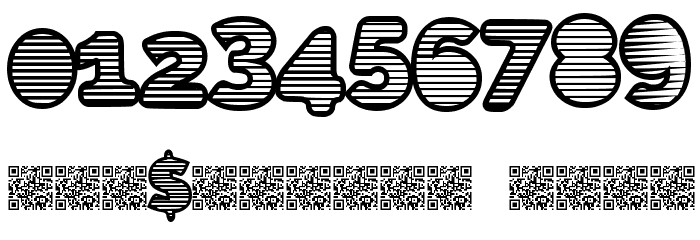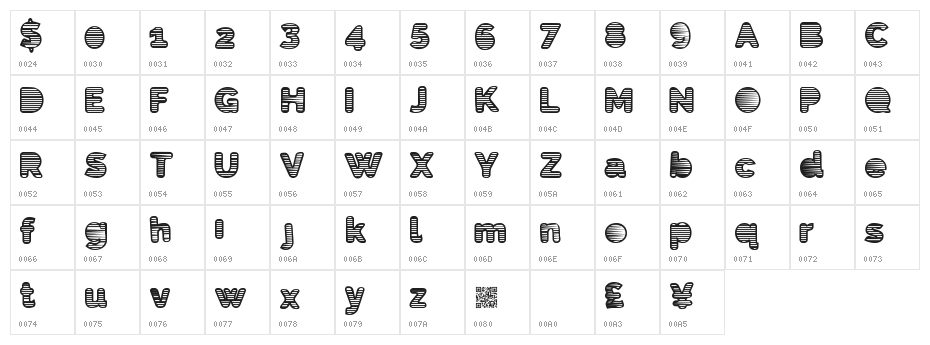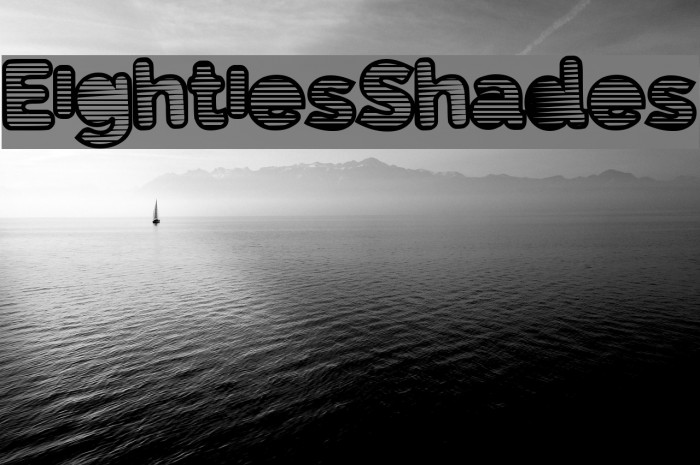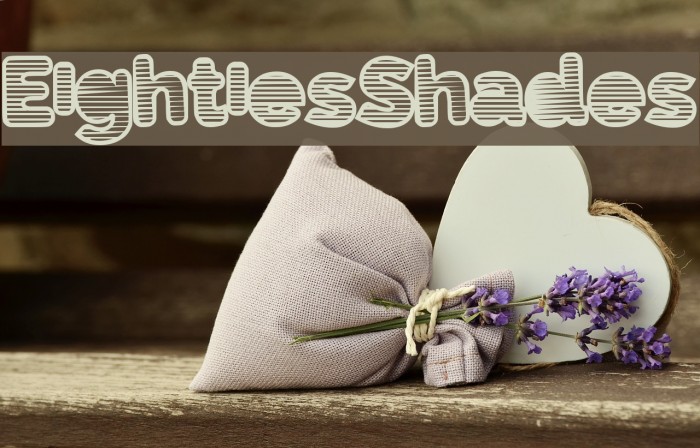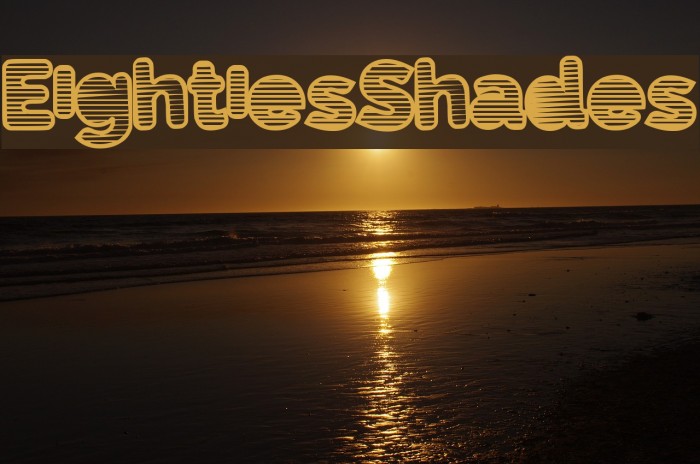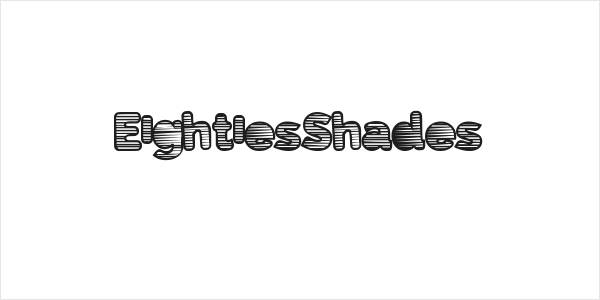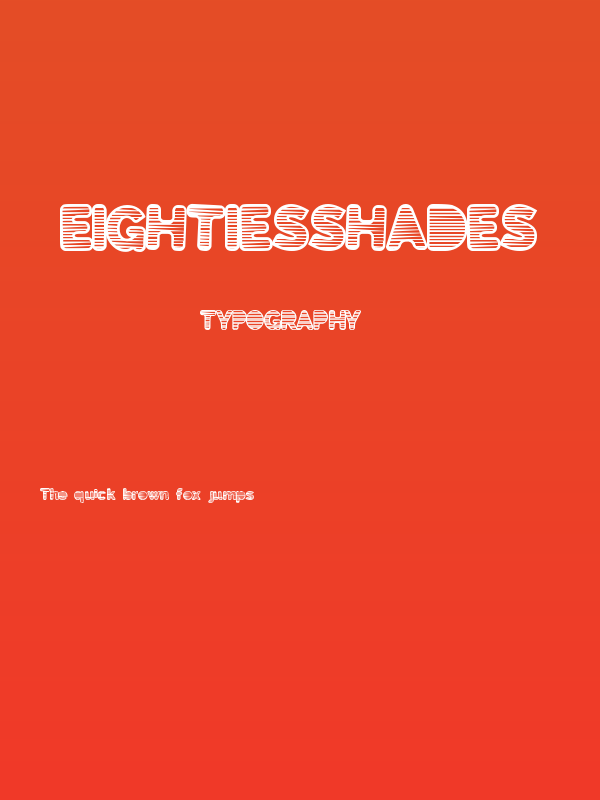
EightiesShades Font
EightiesShades Description
This font features a bold, retro design reminiscent of the 1980s, characterized by its unique striped pattern within each character. The letters are uppercase and lowercase, with numbers and a selection of special characters. The design is playful and eye-catching, making it ideal for projects that require a vintage or nostalgic feel. The lines within each character create a sense of movement and energy, adding to its dynamic appearance. The font's boldness ensures it stands out, while the striped pattern adds a layer of complexity and interest.